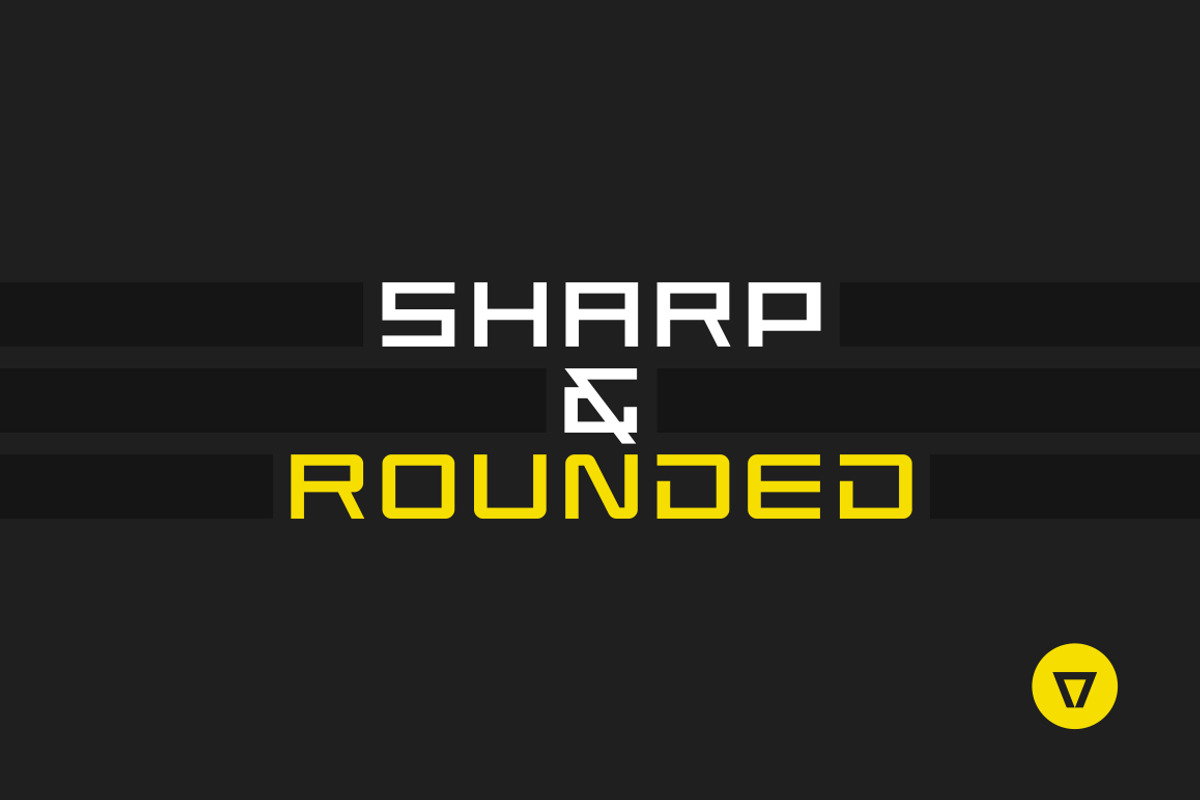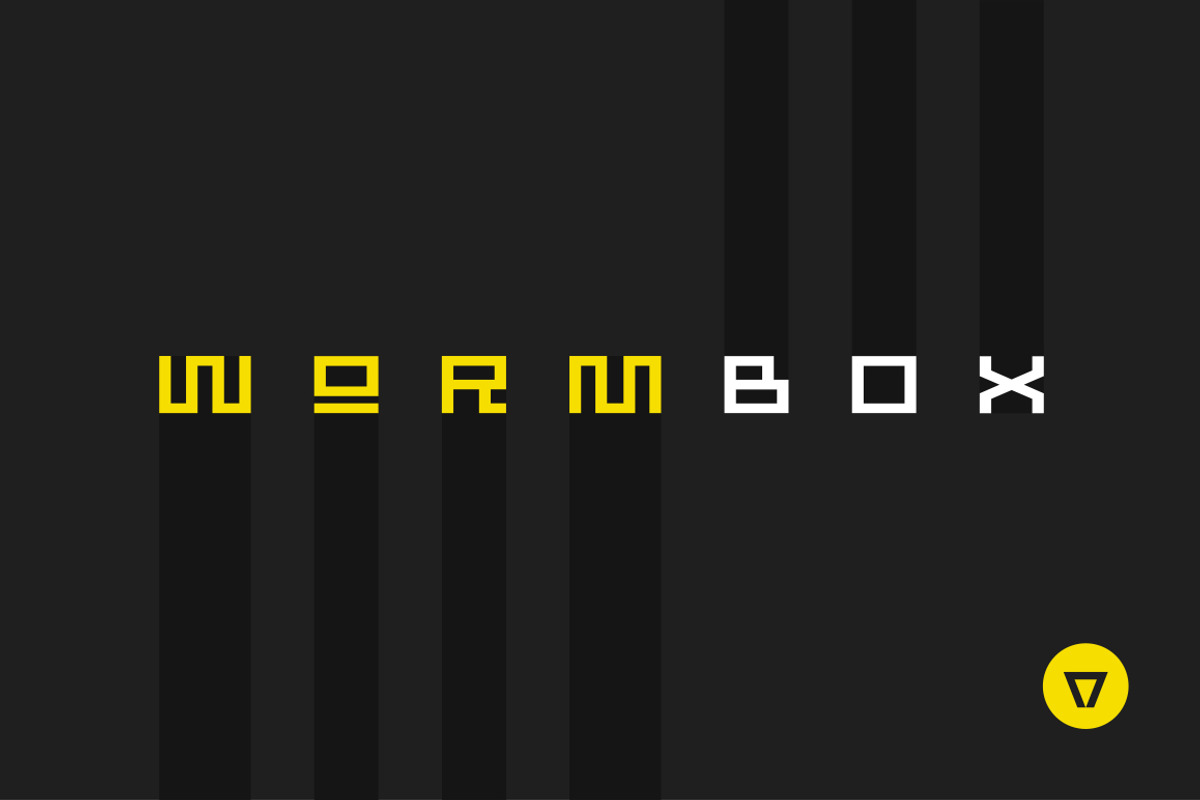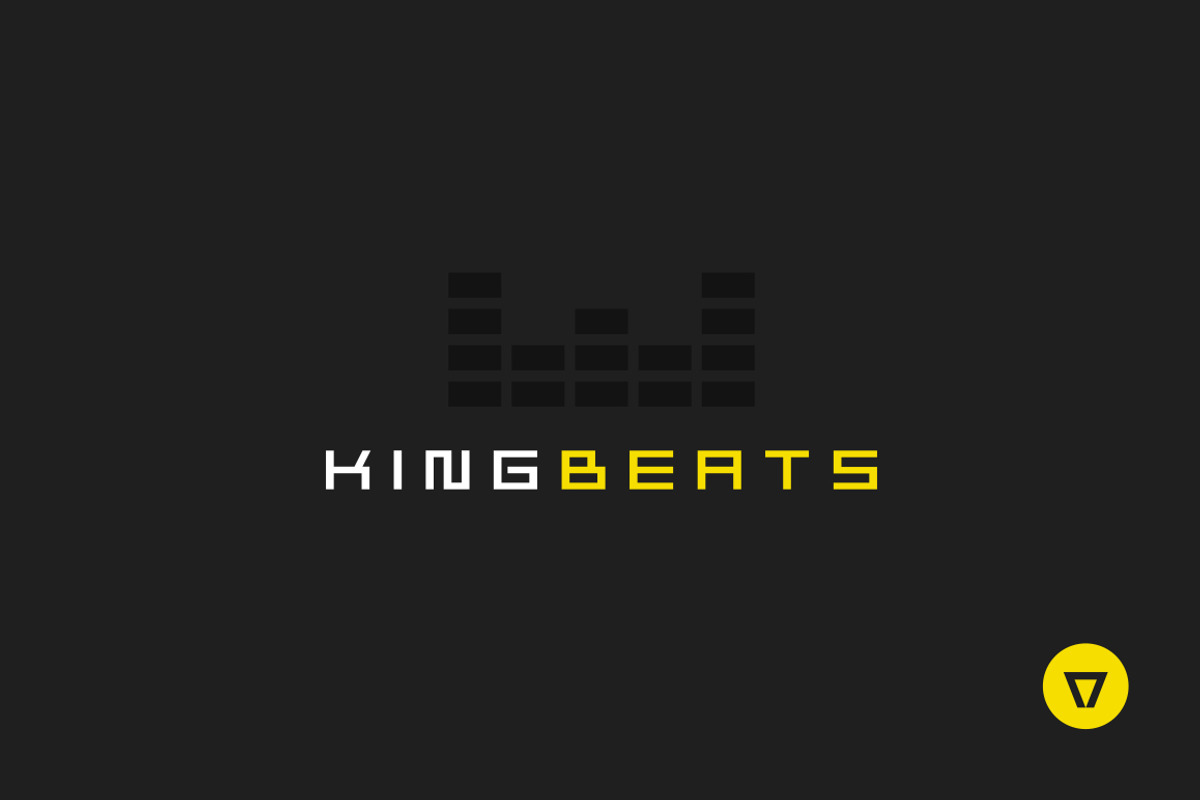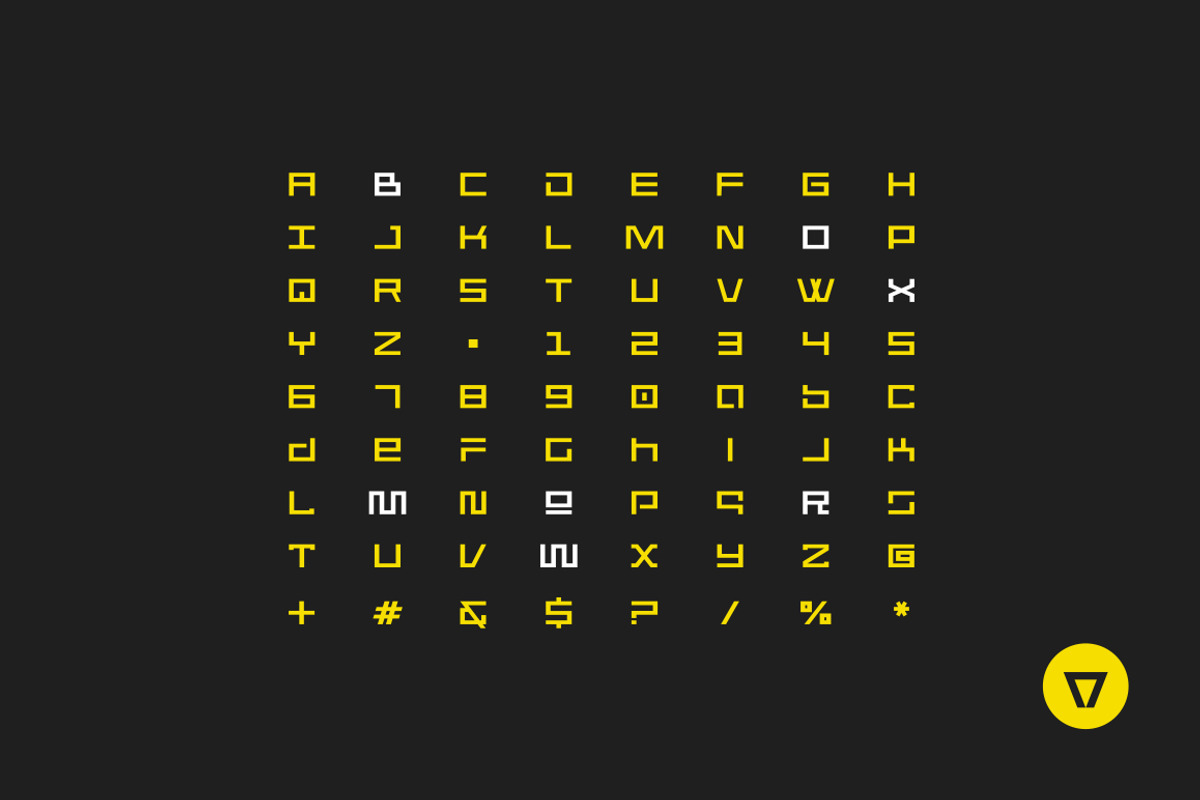
WormBox - Fixed height modular font
WormBox - Fixed height modular font by NimaType is a font selected for branding, posters, packaging, typography.
- Play with uppercase and lowercase to create unique wordmarks and titles.
- Wormbox Rounded
- Wormbox Sharp
Why WormBox - Fixed height modular font is worth a look
WormBox - Fixed height modular font by NimaType fits naturally into Branding, posters, packaging, typography.